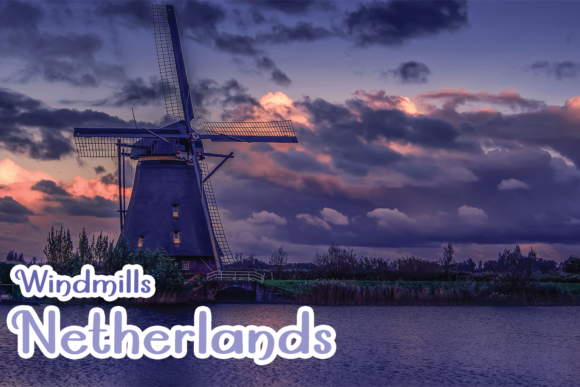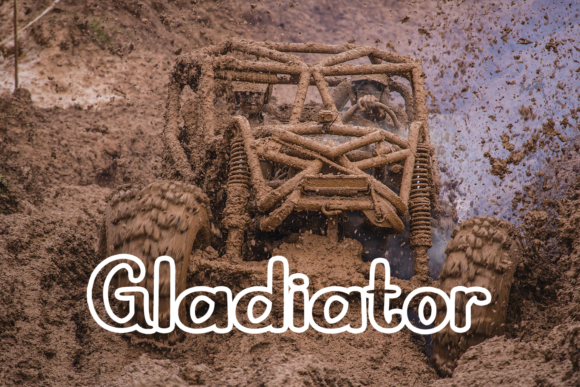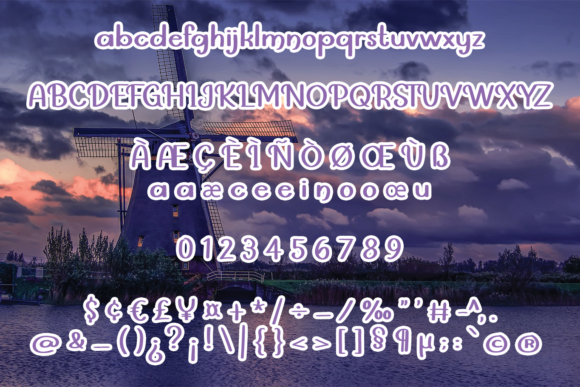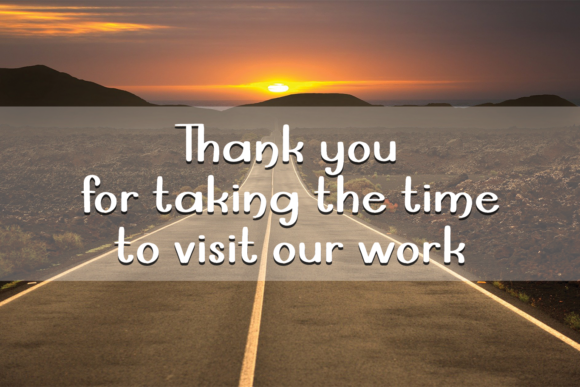
Introduction to Jeep Road Font
Have you ever found yourself stuck in a creative rut, scrolling through design inspiration boards, searching for that perfect touch to elevate your project? You know, that one element that brings everything together and makes your design truly shine? For designers, finding the right font can be the difference between a mediocre design and a masterpiece.
Enter the Jeep Road Font, a simple yet adaptable handwritten font that’s about to become your new go-to design resource. With its natural and unique style, the Jeep Road Font is incredibly fitting to a large pool of designs, from high-quality print materials to digital projects with transparent backgrounds.
Key Features of Jeep Road Font
- Unique, high-quality design for creative projects, ideal for automotive or travel themes
- Features a transparent background, allowing for easy customization and layering
- Designed with a modern, bold aesthetic, perfect for headings and titles in various design applications
Honest Review: Jeep Road Font
As a designer, I’m always on the lookout for high-quality design resources that can elevate my creative projects. Recently, I stumbled upon the Jeep Road Font, and I must say, it’s a game-changer. ✨
One of the standout features of this font is its versatility. It’s perfect for use on transparent backgrounds, which makes it ideal for creating eye-catching graphics and designs. The font’s modern and sleek design also lends itself well to a variety of creative projects.
Here are some of the key features that make Jeep Road Font a valuable design resource:
While the Jeep Road Font is a great addition to any designer’s toolkit, there are a few limitations to be aware of: ⚠️
- Some users may find the font’s modern style a bit too trendy, making it less suitable for more traditional designs
Overall, I’m impressed with the Jeep Road Font and would highly recommend it to designers looking for a high-quality, versatile font for their creative projects.
Introduction to Jeep Road Font
Tips for Getting the Most Out of Jeep Road Font
Experiment with different font sizes and styles to achieve the desired effect.
Use the transparent background feature to create unique design elements.
Common Use Cases for Jeep Road Font
The Jeep Road Font is ideal for:
– Travel and adventure-related designs
– Outdoor and sports-themed projects
– Creative and artistic expressions
Alternatives to Jeep Road Font